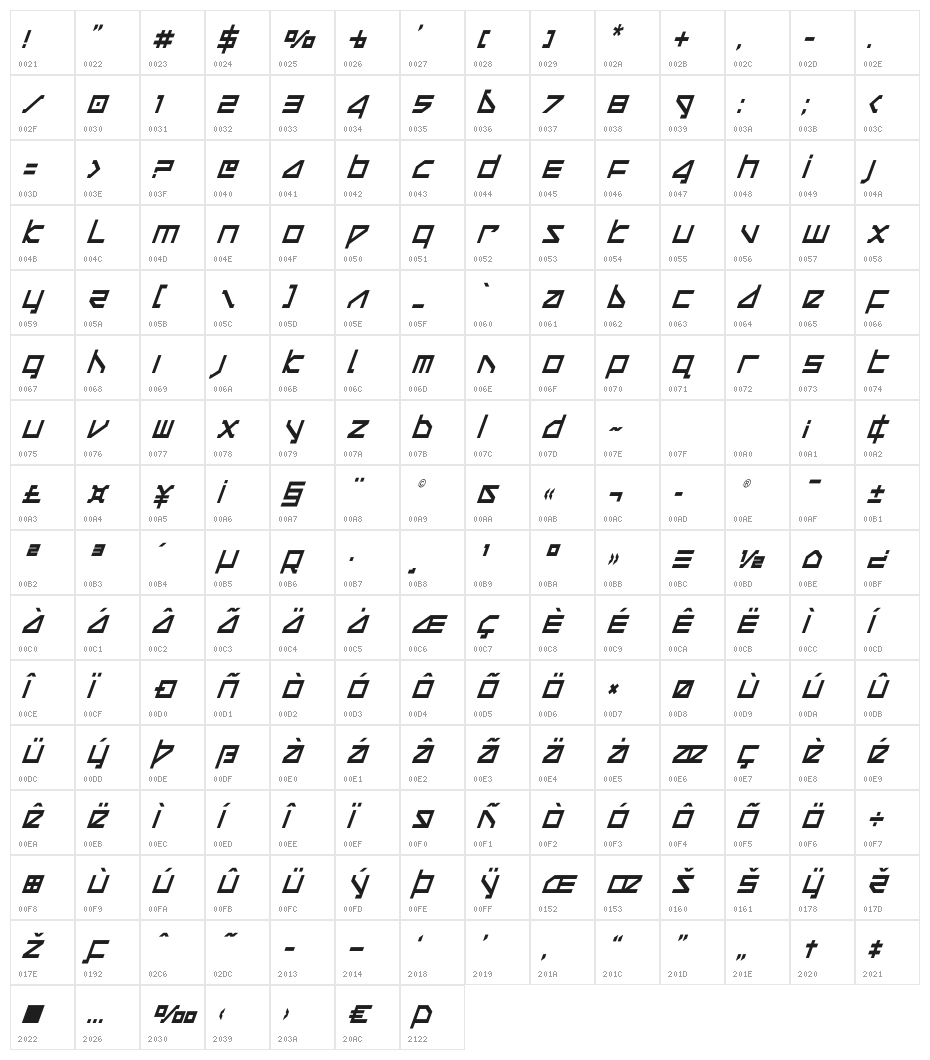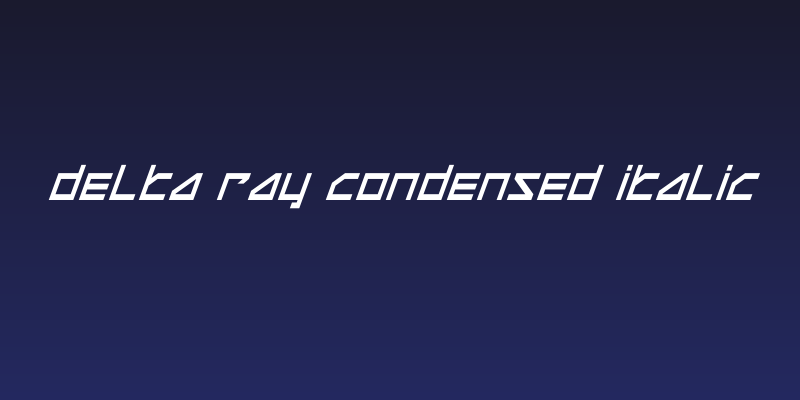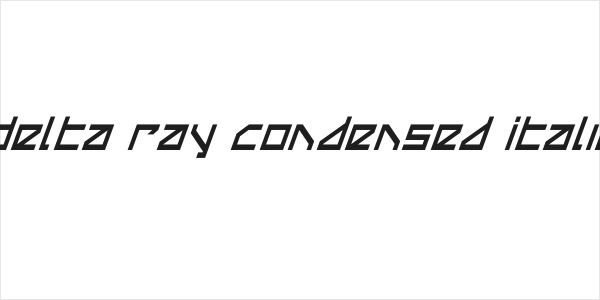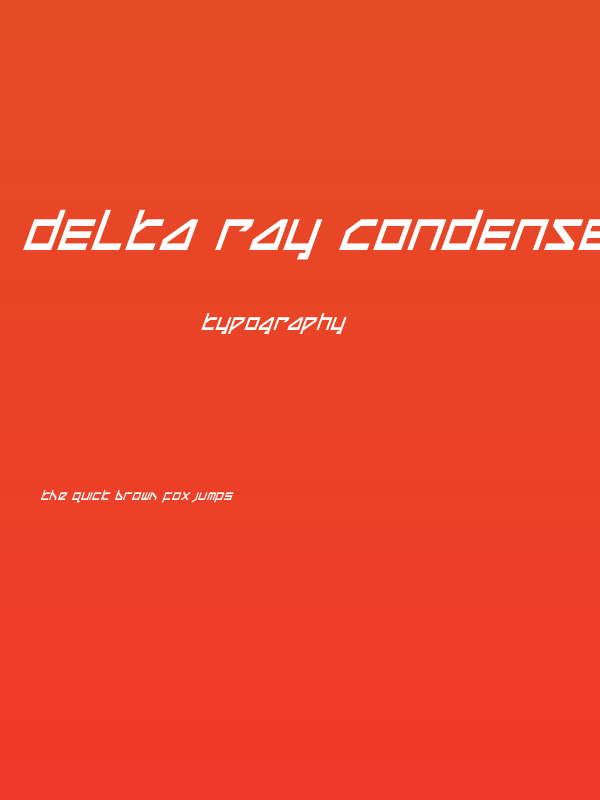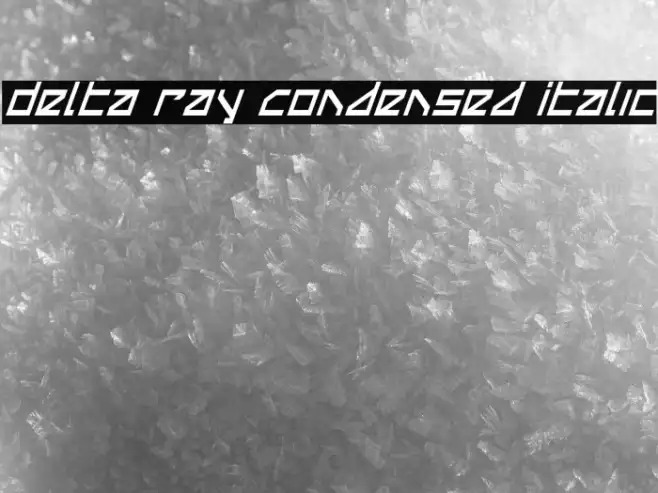
Delta Ray Condensed Italic Font
Delta Ray Condensed Italic Description
This font features a futuristic and angular design, characterized by its sharp edges and geometric shapes. The letters are italicized, giving a sense of motion and speed. The condensed style makes it compact, allowing for efficient use of space while maintaining readability. The uppercase and lowercase letters share a consistent style, with a unique approach to each character that emphasizes a modern and technological aesthetic. The numbers and special characters follow the same design principles, ensuring uniformity across all elements.
| Proposed Projects | Ideal for technology branding, sci-fi movie posters, video game titles, and modern advertising campaigns. |